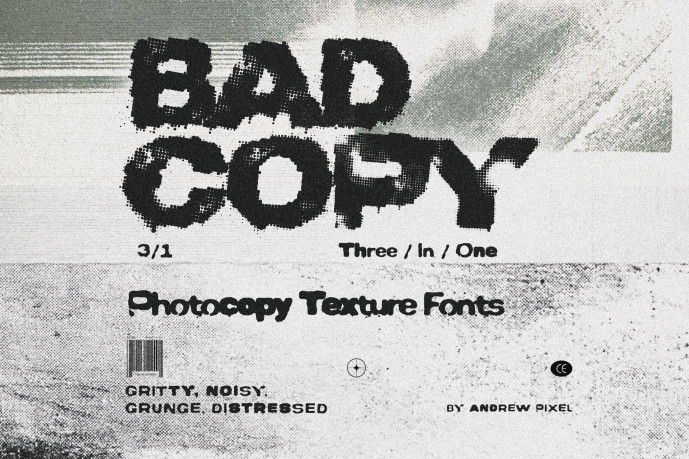
Bad Copy Display Font
Bad Copy Display Font —a gritty, noisy, and unapologetically messy font that brings that authentic, ink-starved photocopy texture straight to your keyboard.
This isn’t your standard, clean-cut typeface. It’s a 3-in-1 photocopy texture font packed with raw halftone dots, rough edges, and a heavy grunge aesthetic. I designed this to save you time when you need to inject some serious attitude and retro texture into your work. Whether you’re going for a 90s punk vibe or a modern brutalist look, this distressed font does the heavy lifting for you.